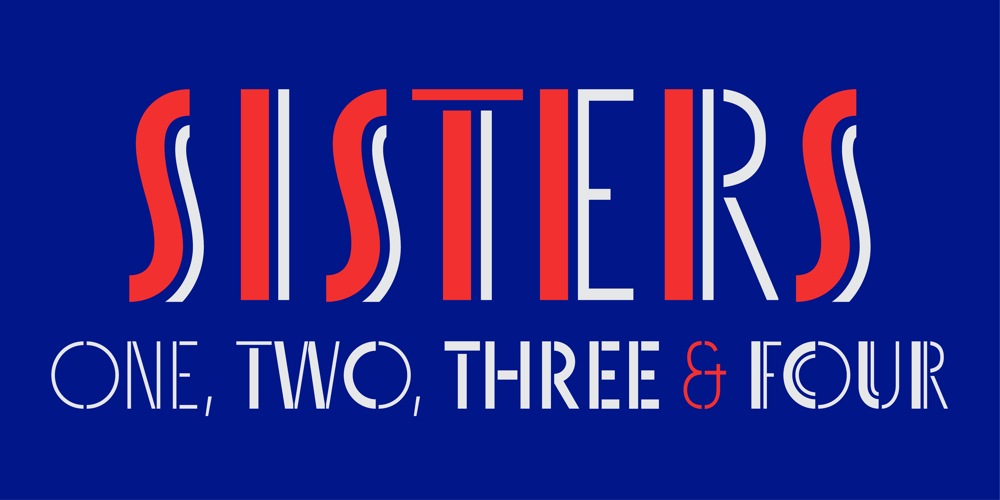
Sisters Font Family was designed by Laura Meseguer and published by Type-Ø-Tones. Sisters contains 4 styles and family package options. Sisters is a lively set of stencil display typefaces designed by Type-Ø-Tones’ co-founder Laura Meseguer. The family features four fresh fonts that share foundational principles of construction yet complement each other—as sisters do—by celebrating their differences. Variations in contrast, weight, and design characteristics result in four distinct styles dubbed One through Four. This cool quartet contains no lowercase, asserting the family’s rightful place in the titling typography space.Like many Type-Ø-Tones typefaces, Sisters was conceived as a custom lettering project—in this case, the design was crafted for the identity of an art exhibition. Laura initially drew only the limited character set the show required, but from the outset, she saw great potential for a fully developed type family based on her lettering concept.The first member of Laura’s new family was, naturally, Sisters One. She later added contrast to produce Sisters Two, then equalized the weight of Sisters Two to create Sisters Three. To round out the group, Laura added a deco touch to Sisters Two, resulting in the festive but retro-elegant Sisters Four. Each Sister shares DNA with the other members of the family, just as human siblings do :).Credit for the Sisters name goes to Eider Corral and we couldn’t imagine a more fitting moniker for this little family.